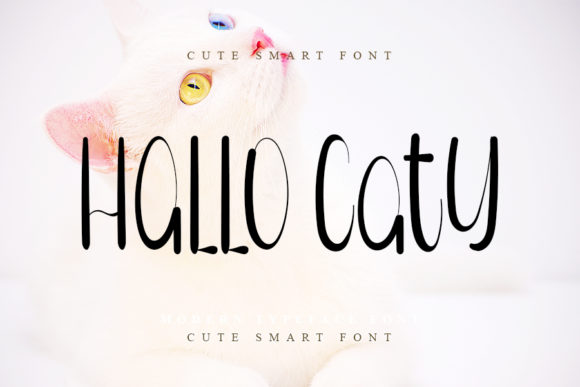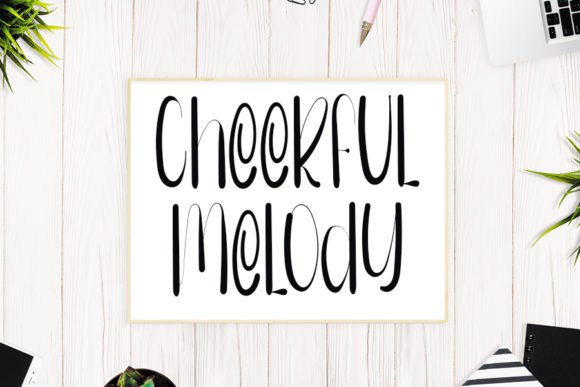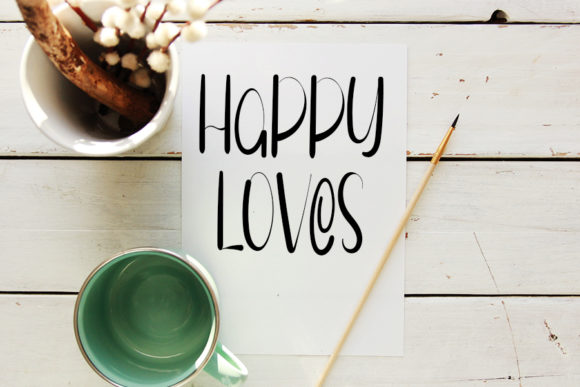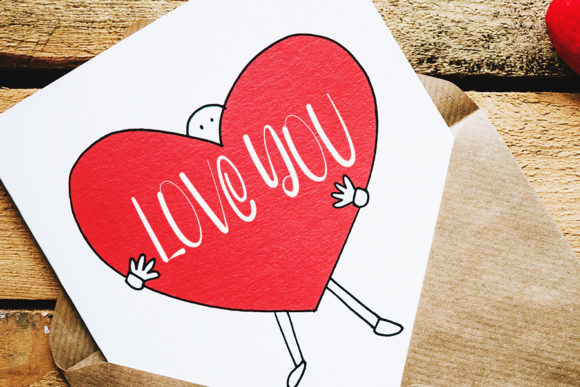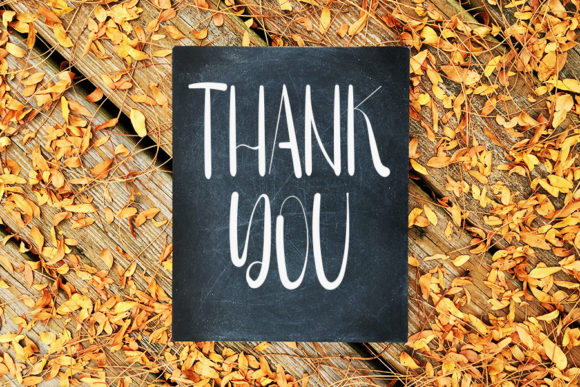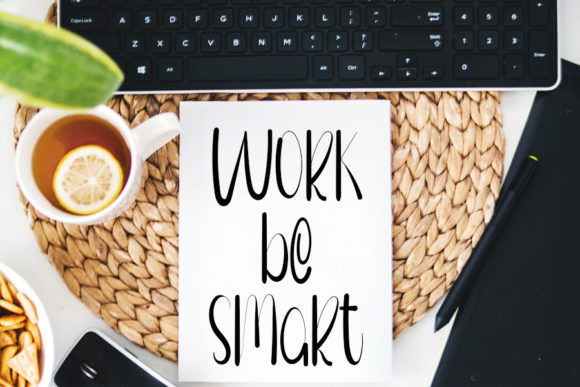
Hello Caty Font
About Hello Caty Font
Hello Caty is a simple and cute handwritten font that brings a touch of charm and playfulness to your designs. With its balanced and varied letterforms, it adds a delightful and friendly vibe to any project.
The clean and legible style of Hello Caty makes it suitable for a wide range of design purposes. Whether you’re creating invitations, greeting cards, logos, social media posts, or any other visual content, this font will enhance the overall beauty of your projects.
Hello Caty strikes a perfect balance between being not too thin and not too thick, ensuring excellent readability across different sizes and mediums. Its consistent stroke width and well-crafted letterforms make it a reliable choice for conveying your message clearly and effectively.
This font’s simplicity and versatility allow it to blend seamlessly into various design contexts. It can bring a touch of whimsy to children’s book illustrations, add a friendly and approachable feel to branding materials, or infuse a sense of warmth and personalization into your creative endeavors.
Whether you’re aiming for a cute and playful aesthetic or a more casual and relaxed vibe, Hello Caty has the versatility to adapt and elevate your designs. Its balanced and varied letterforms create visual interest while maintaining a sense of coherence and harmony.
In summary, Hello Caty is a simple and cute handwritten font that enhances the beauty of your projects. With its balanced and varied letterforms, it brings a touch of charm and playfulness to your designs. Whether you’re creating invitations, logos, or social media content, Hello Caty adds a delightful and friendly vibe that will captivate your audience.